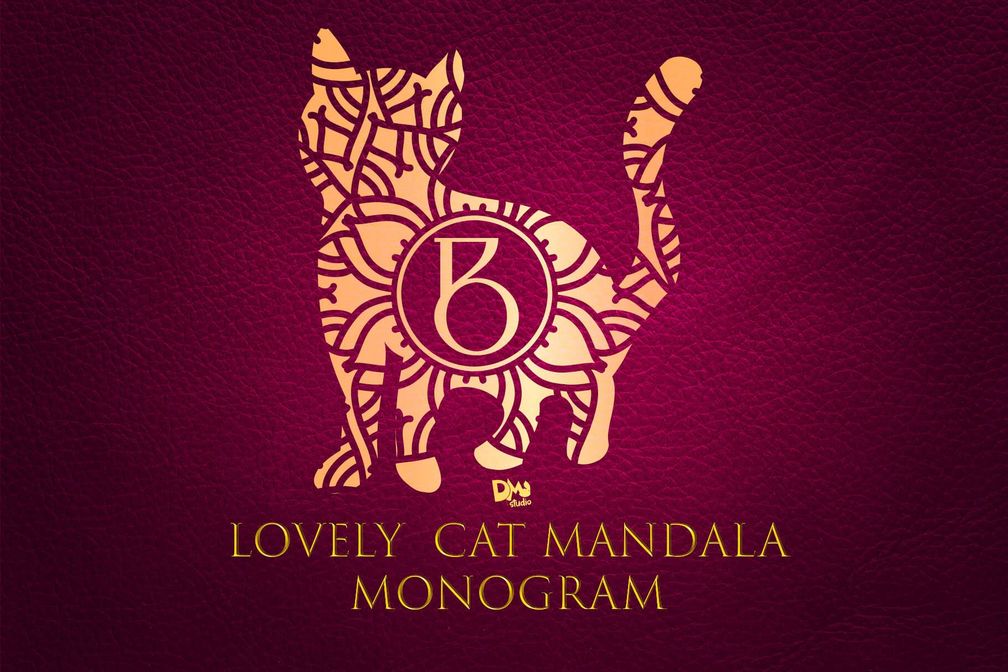
Lovely Cat Mandala Monogram
Lovely Cat Mandala Monogram – Whimsical & Adorable Feline-Inspired Monogram Font
Lovely Cat Mandala Monogram is a delightful monogram font that blends playful cat silhouettes with intricate mandala patterns, creating a purr-fect harmony of cuteness and artistry. Each letter is styled with a charming feline pose surrounded by ornamental floral motifs, making it ideal for cat lovers, pet-themed products, children’s items, personalized gifts, and cozy home decor designs.
• Adorable Cat Silhouettes: Each monogram is paired with a lovely cat pose for added personality.
• Intricate Mandala Accents: Elegant mandala flourishes give a decorative and handcrafted touch.
• Charming & Whimsical Style: Adds warmth and character to both print and digital creations.
• Full Character Set: Includes uppercase letters, numbers, punctuation, and multilingual characters.